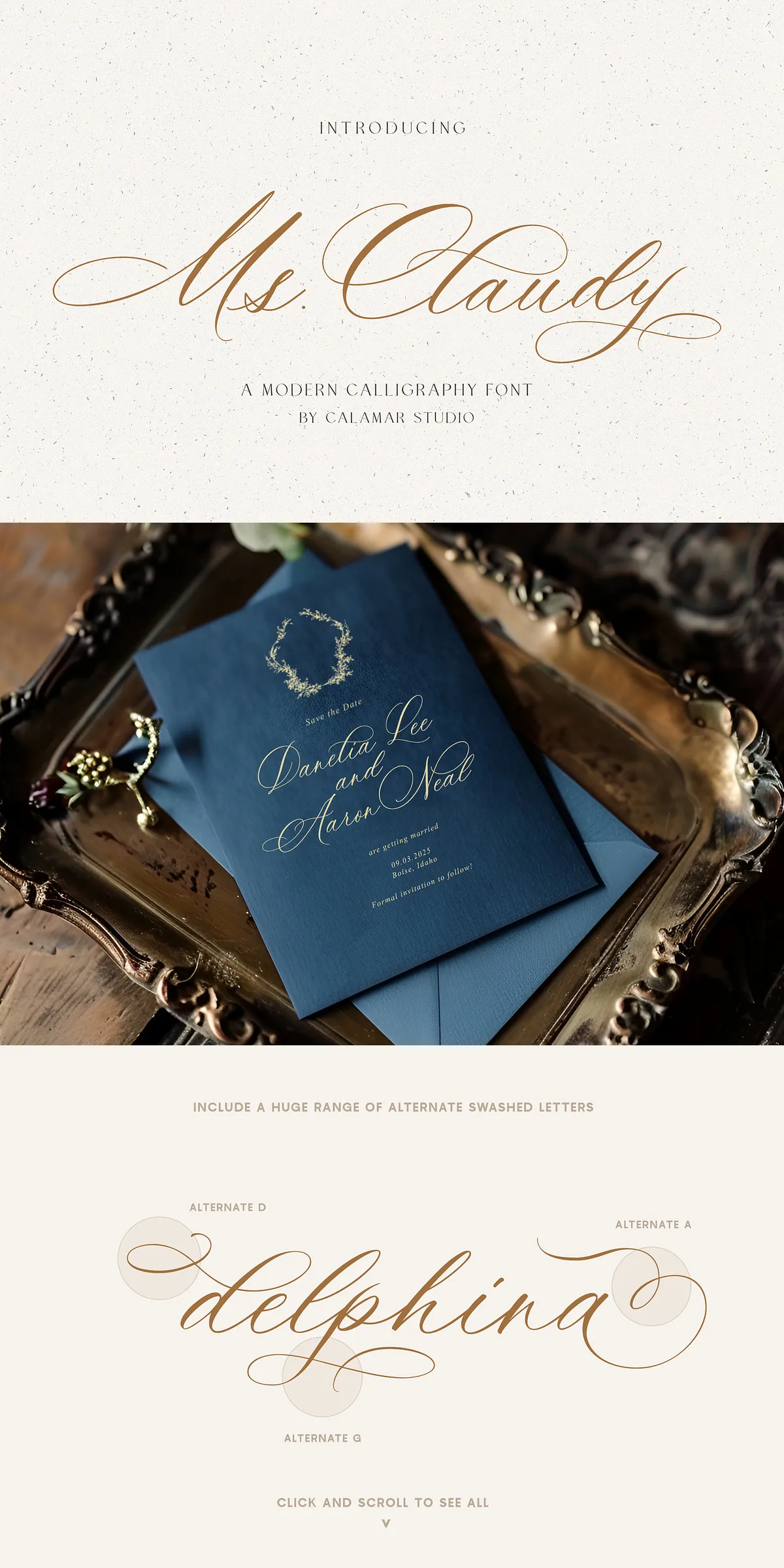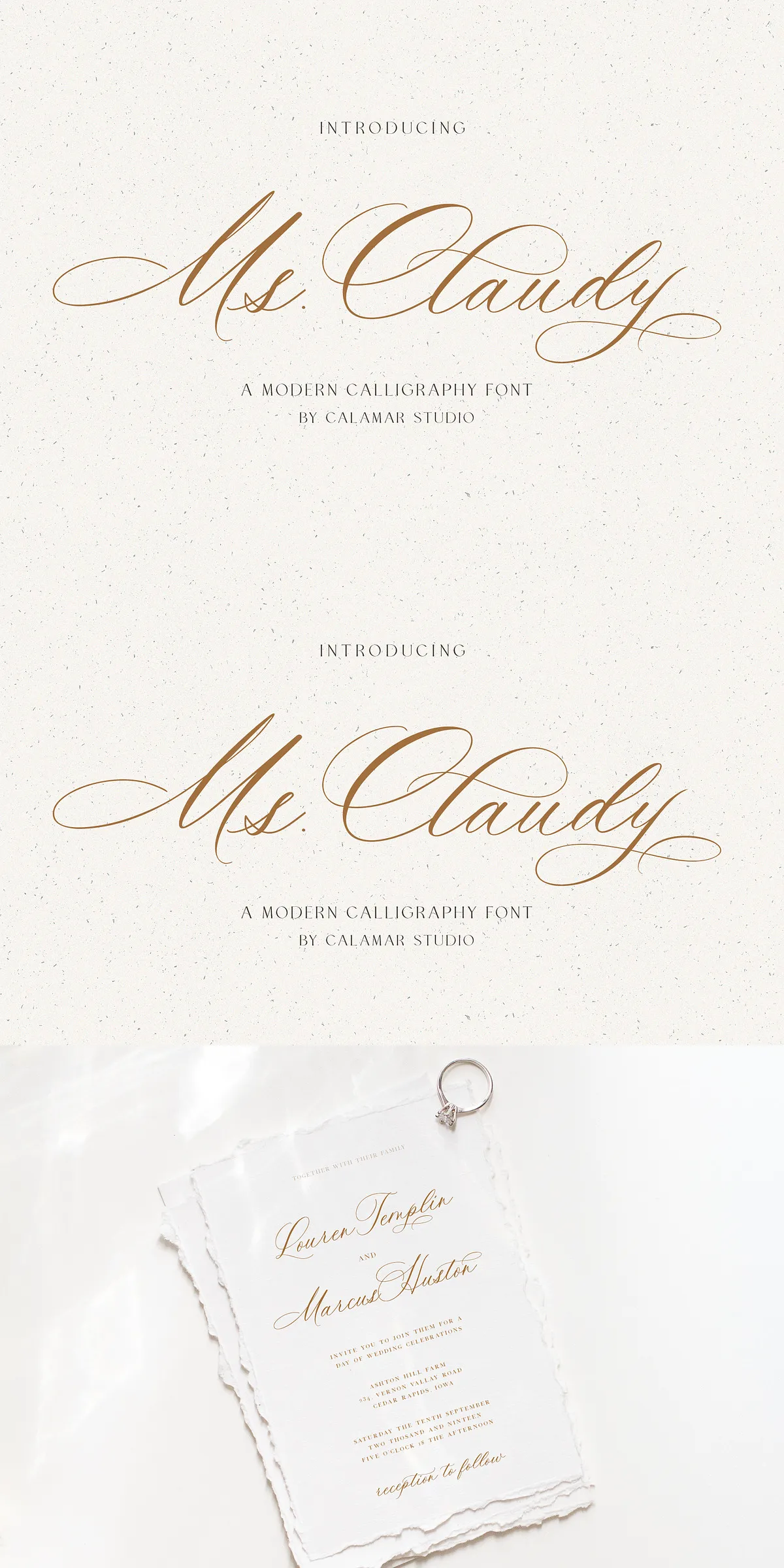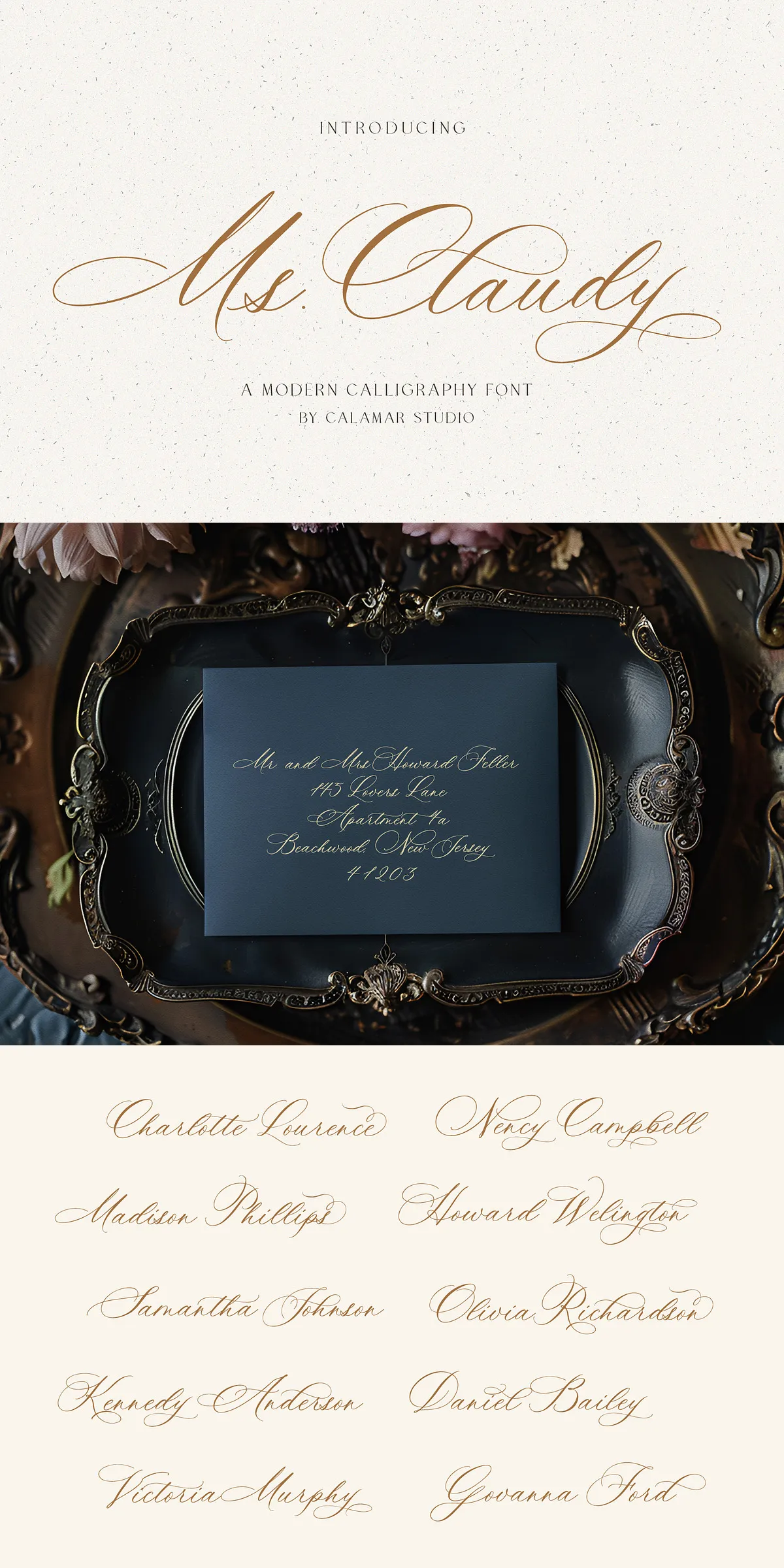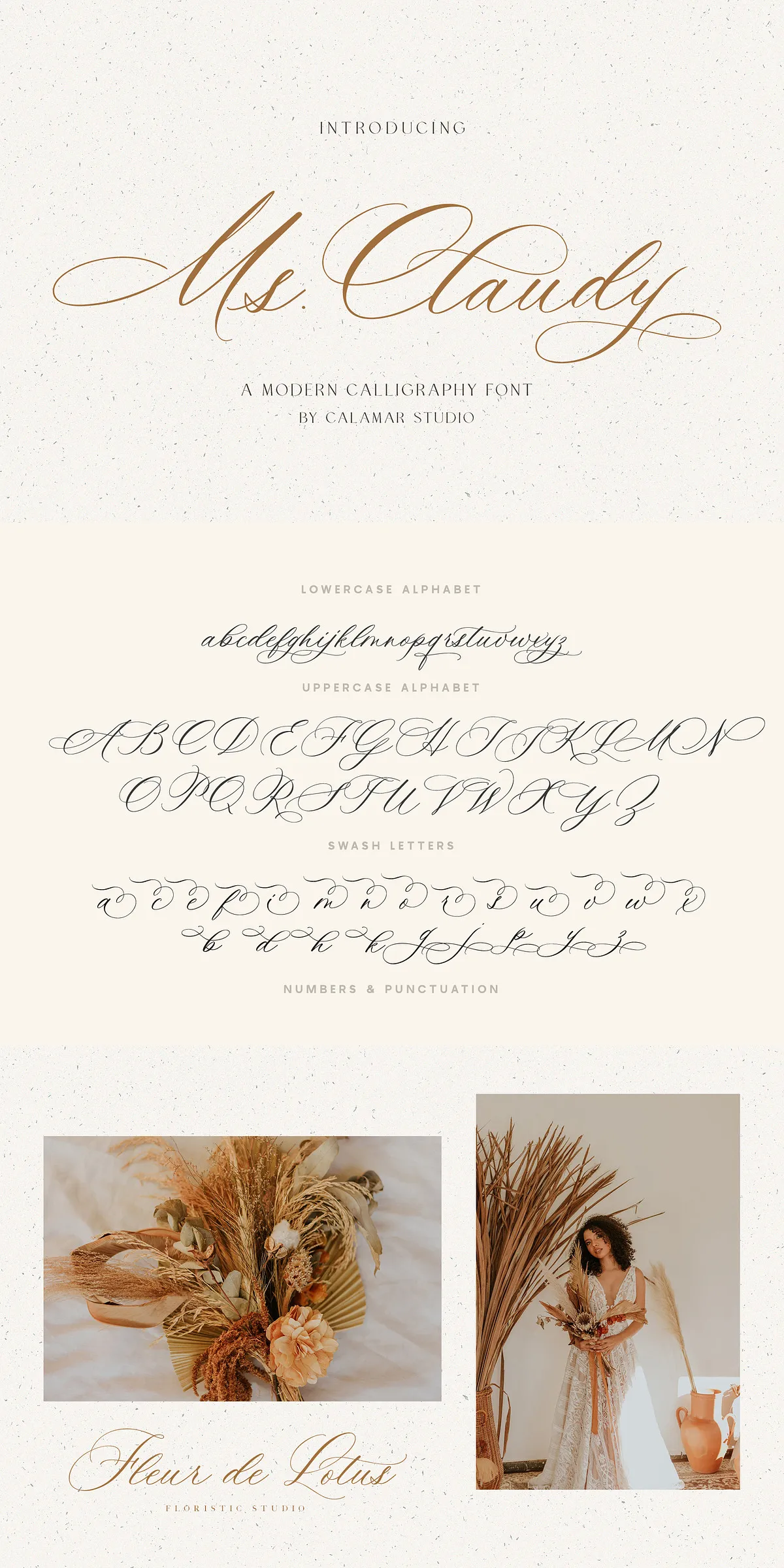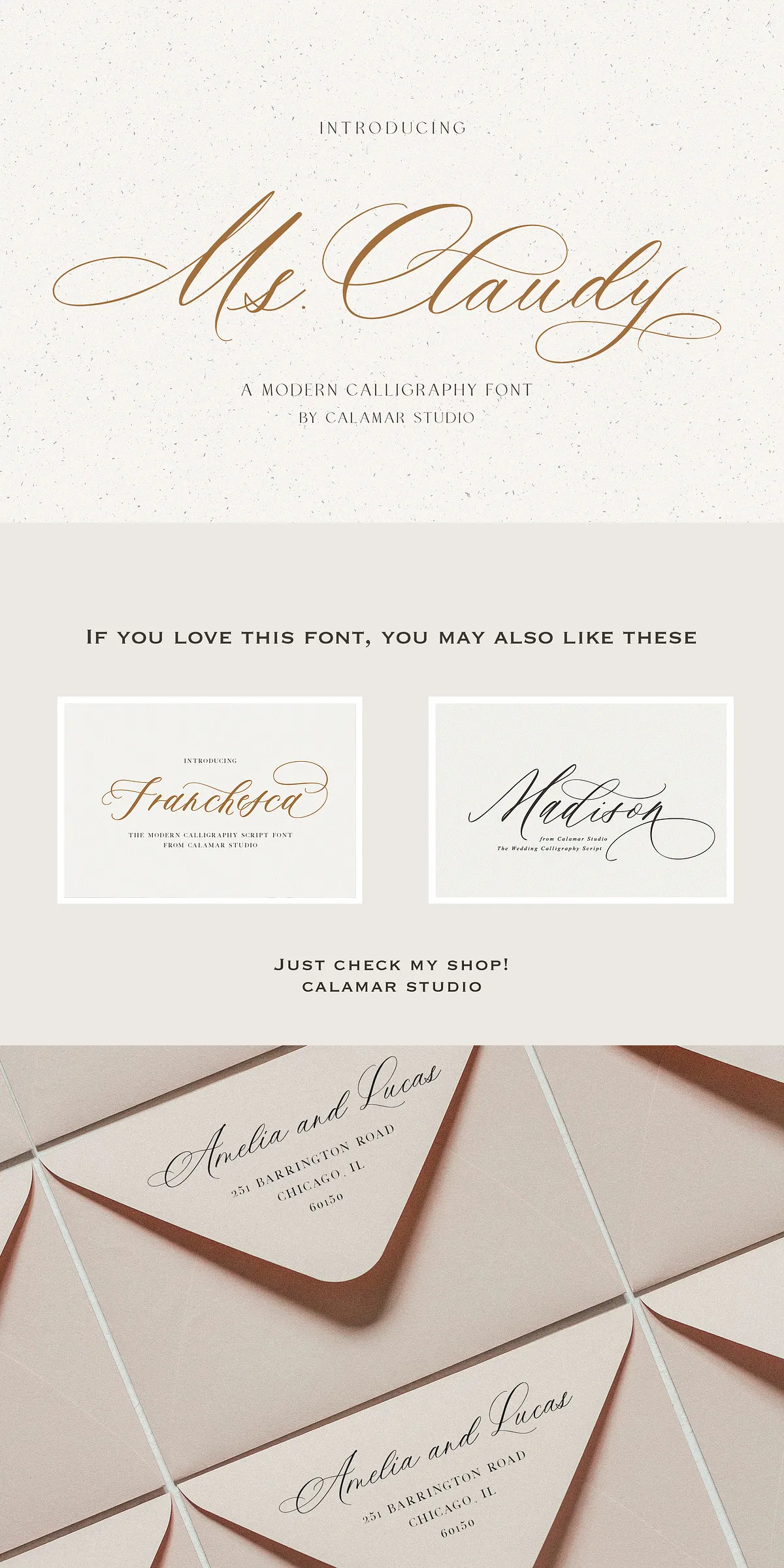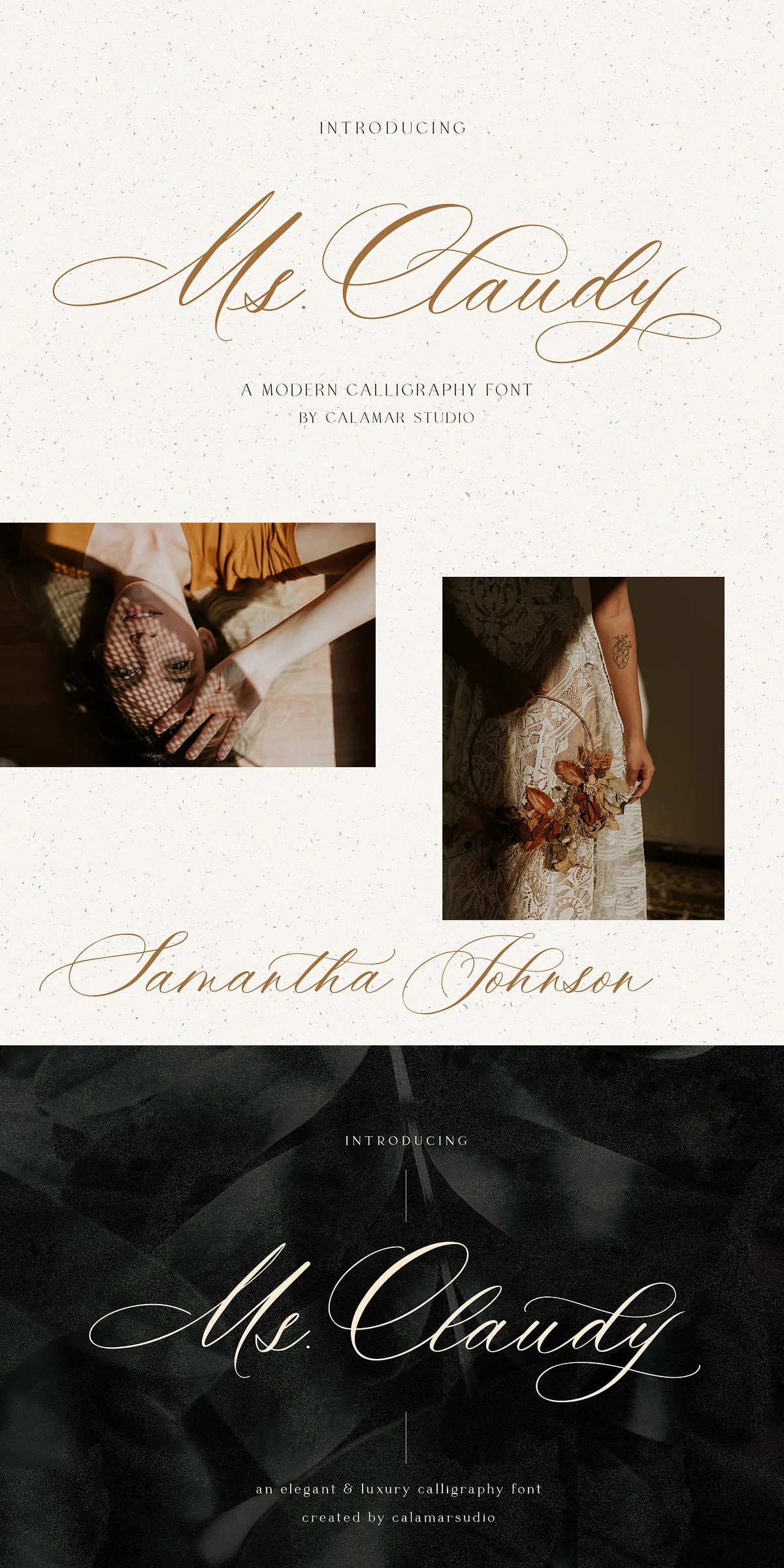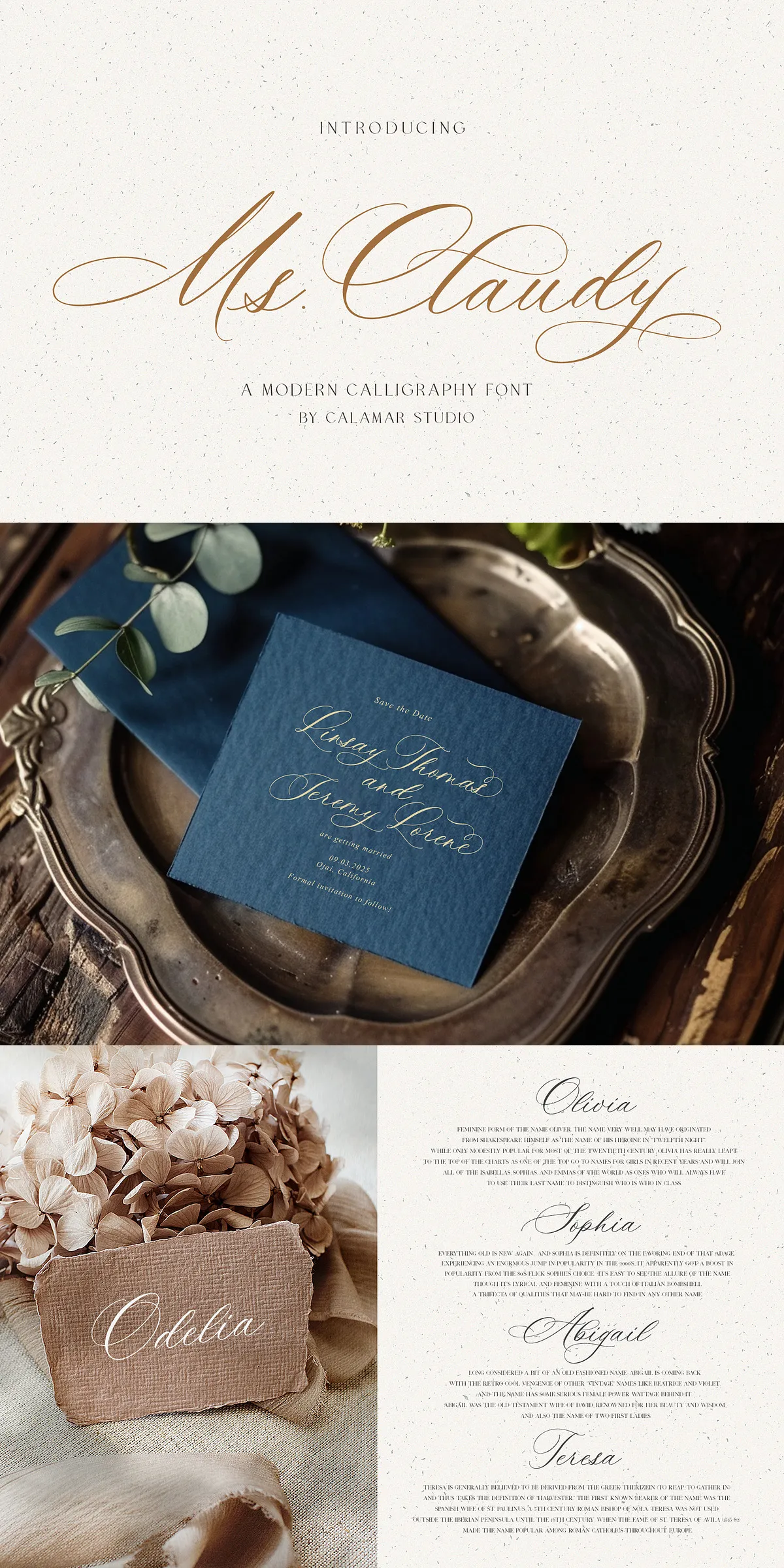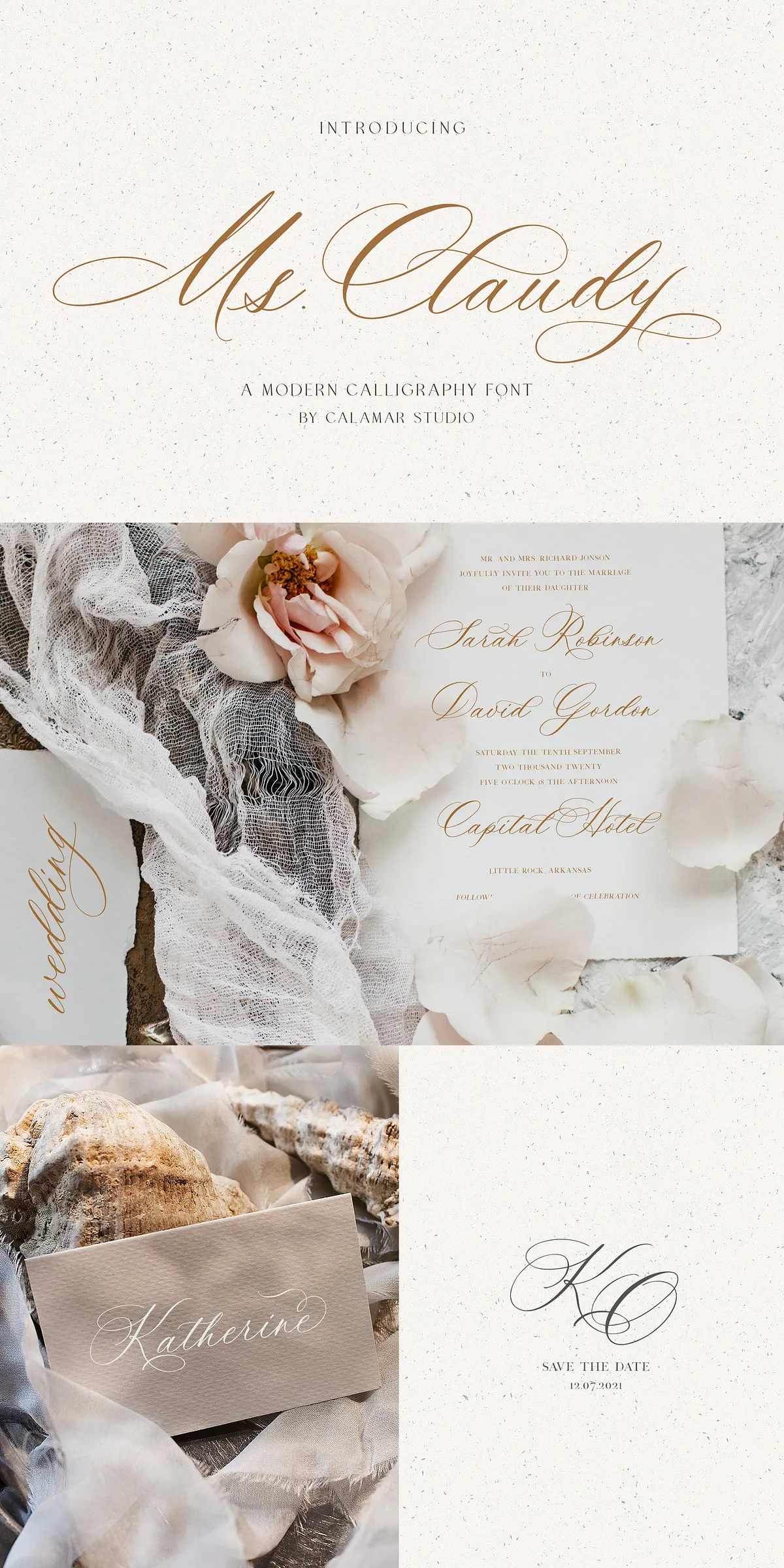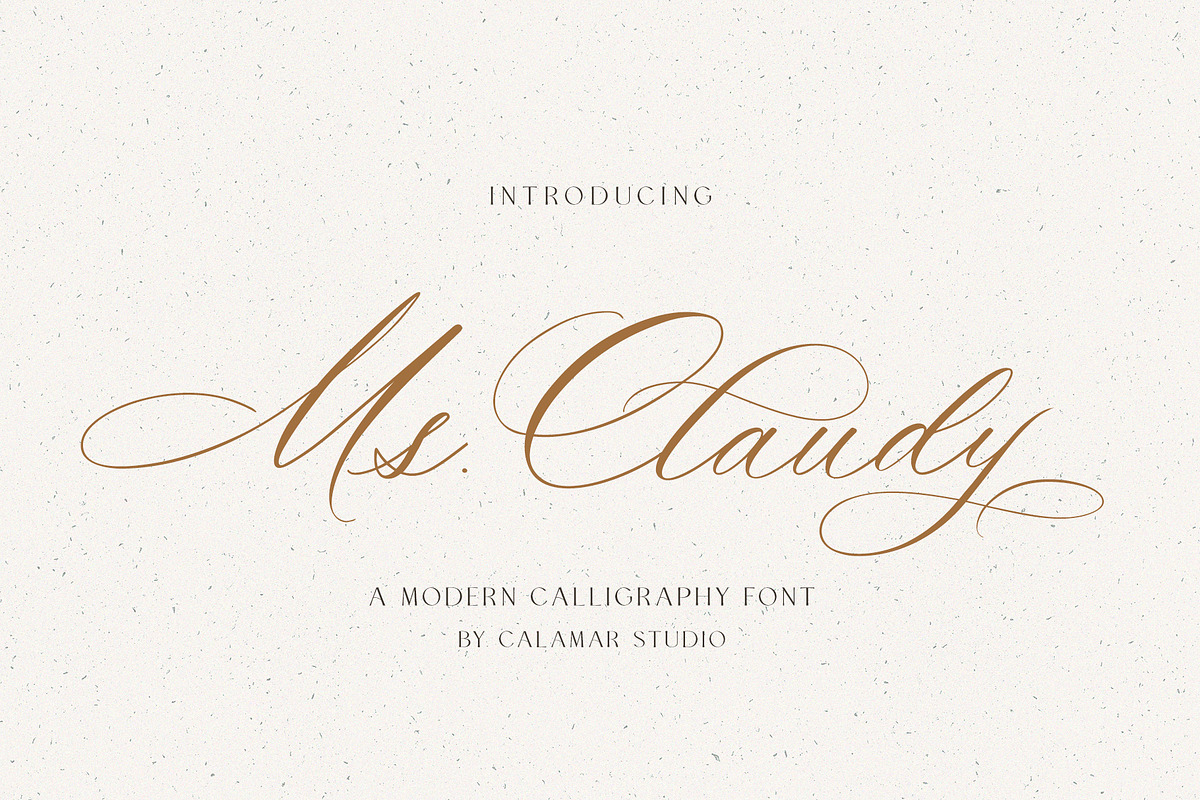
Step into the world of graceful expression with Ms Claudy – a meticulously crafted modern calligraphy font that blends delicate artistry with contemporary precision. Designed for creatives who demand elegance, flow, and soul in their typography, Ms Claudy is the ultimate choice for wedding invitations, save the date cards, bridal stationery, feminine branding, and high-end visual storytelling. Every stroke feels purposeful, every curve exudes refinement, and every letterform tells a story of thoughtful design.
Masterfully Designed for Elegance and Authenticity
Ms Claudy isn’t just a script font — it’s a digital canvas of hand-drawn authenticity, reimagined for the modern designer. Created with an eye for natural calligraphy flow, this typeface features a full suite of design elements that bring your text to life:
- Complete Uppercase and Lowercase Alphabet – Every letter is thoughtfully proportioned to maintain balance, rhythm, and visual harmony.
- Numerals and Full Punctuation Support – Numbers and symbols are designed to seamlessly match the script’s refined aesthetic.
- Ligatures and Stylistic Alternates – Choose from a wide range of contextual ligatures and custom alternates to mimic real penmanship, ensuring your text looks organic and fluid, not machine-generated.
- Multilingual Compatibility – Fully supports Western European, Central European, and South Eastern European languages, enabling you to work across regions with confidence.
With advanced OpenType features, Ms Claudy gives you professional-grade control. Explore different alternates directly in your design software to find the perfect match for your mood and message.
Perfect for High-End, Emotion-Driven Design Projects
Ms Claudy thrives in settings where elegance and personal touch matter most. Whether you’re crafting a dreamy wedding suite, a luxury brand identity, or a heartfelt personal message, this font adds an instant layer of sophistication. Try it for:
- Wedding invitations and RSVP cards that feel personal and memorable
- Save the date announcements with a touch of romance and grace
- Feminine branding for beauty, lifestyle, or boutique businesses
- Personalized journals, quote prints, or artistic digital illustrations
- Product packaging, business cards, or editorial layouts that command attention
Its natural rhythm and flowing ligatures ensure high readability without sacrificing style — ideal for both large headings and delicate line-by-line text.
Ms Claudy is more than a font — it’s a design philosophy. It represents the quiet confidence of perfectly executed pen strokes, the warmth of handwritten notes, and the timeless beauty of calligraphy reimagined for the digital age. It’s the choice for anyone who believes that typography should speak not just words, but emotion.